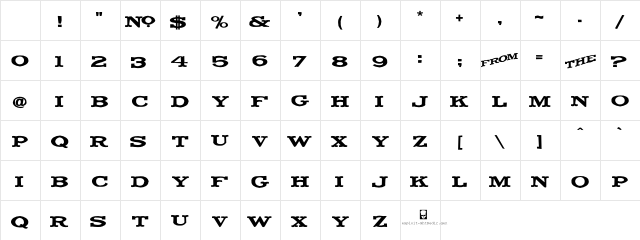
LHF Fancy Full Regular is a composed and adaptable typeface that performs quietly and consistently across a wide range of design contexts.
Who designed the LHF Fancy Full Regular font?
This font was published by Chuck Davis for Letterhead Fonts. Check the technical specs section for copyright and designer details.